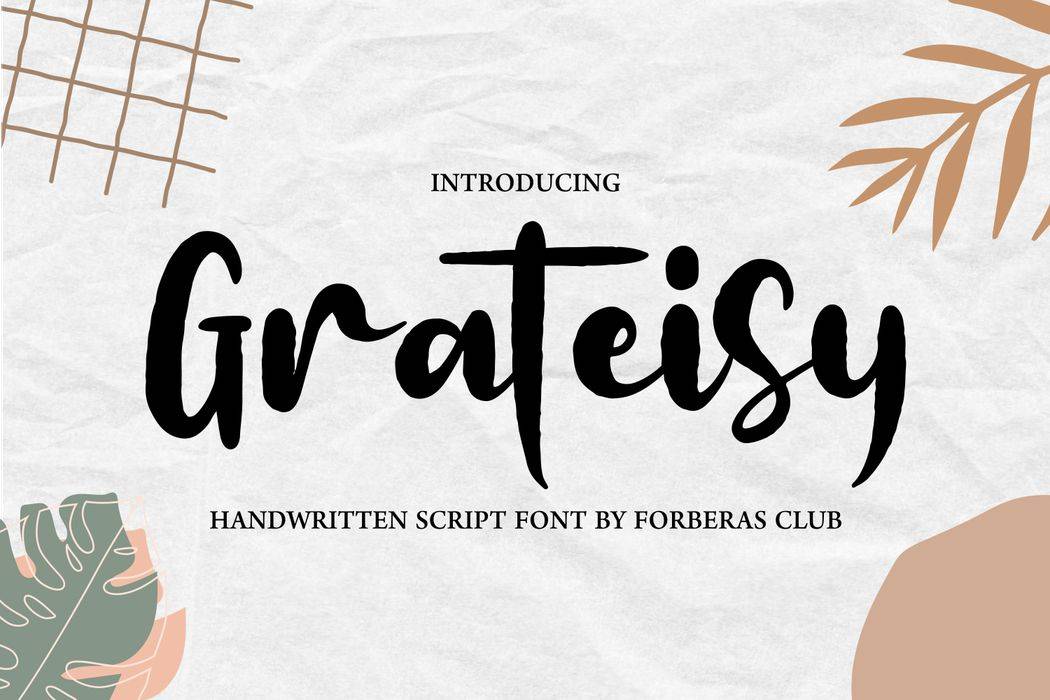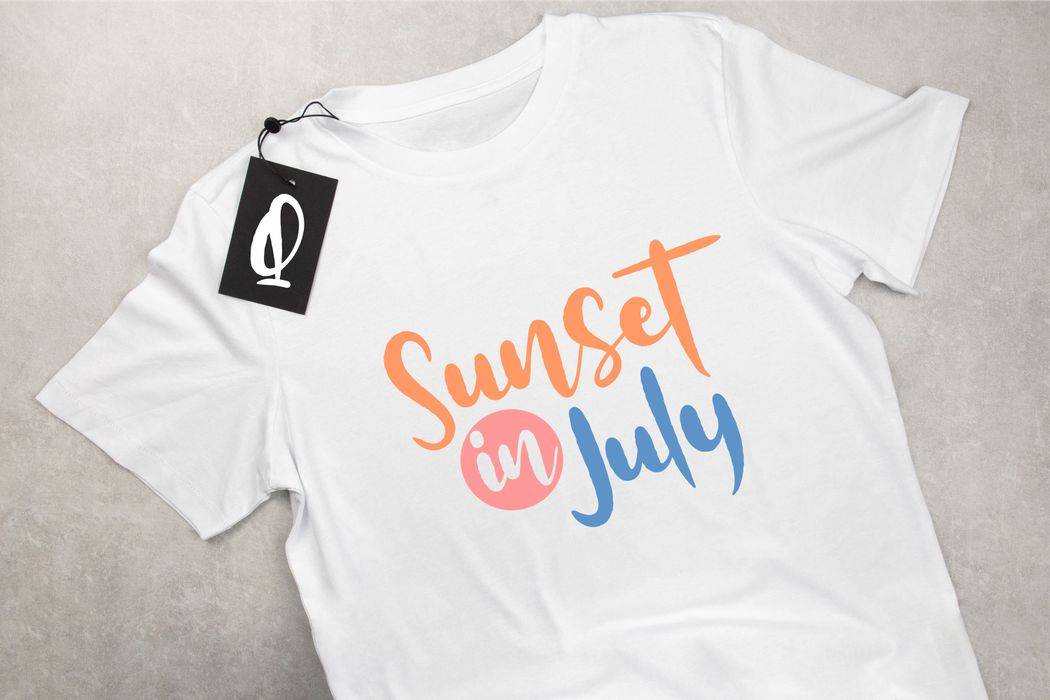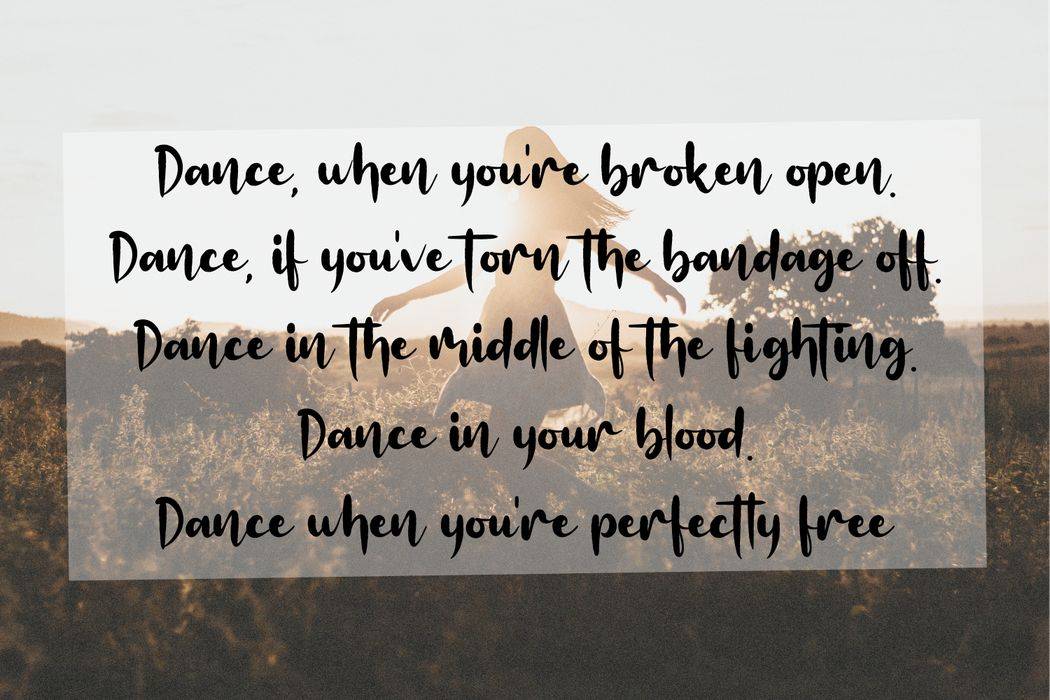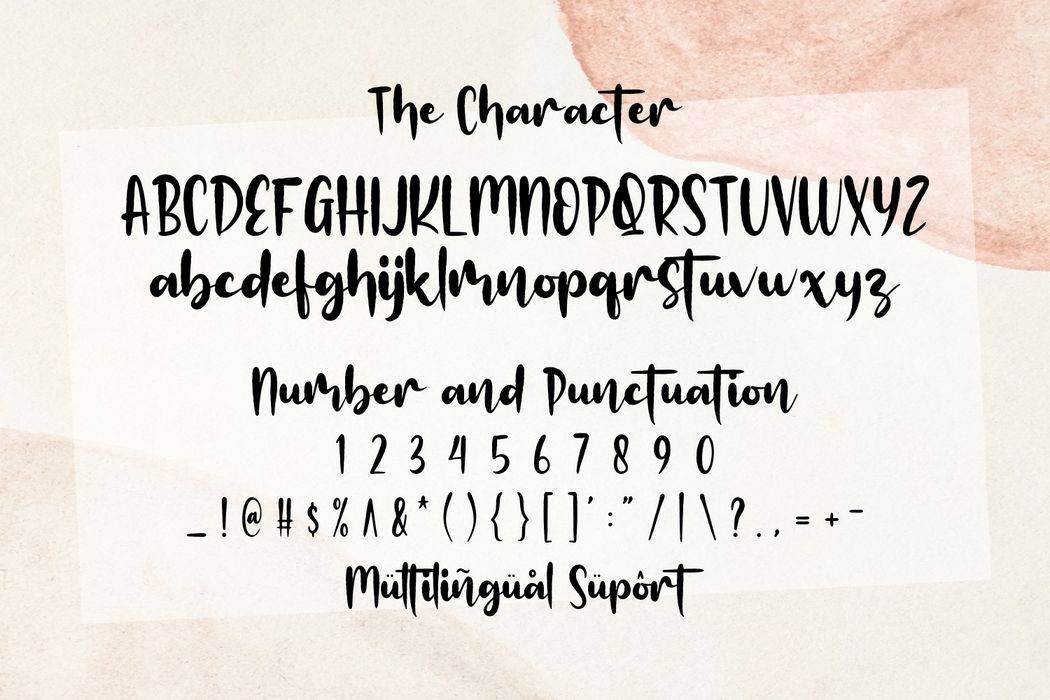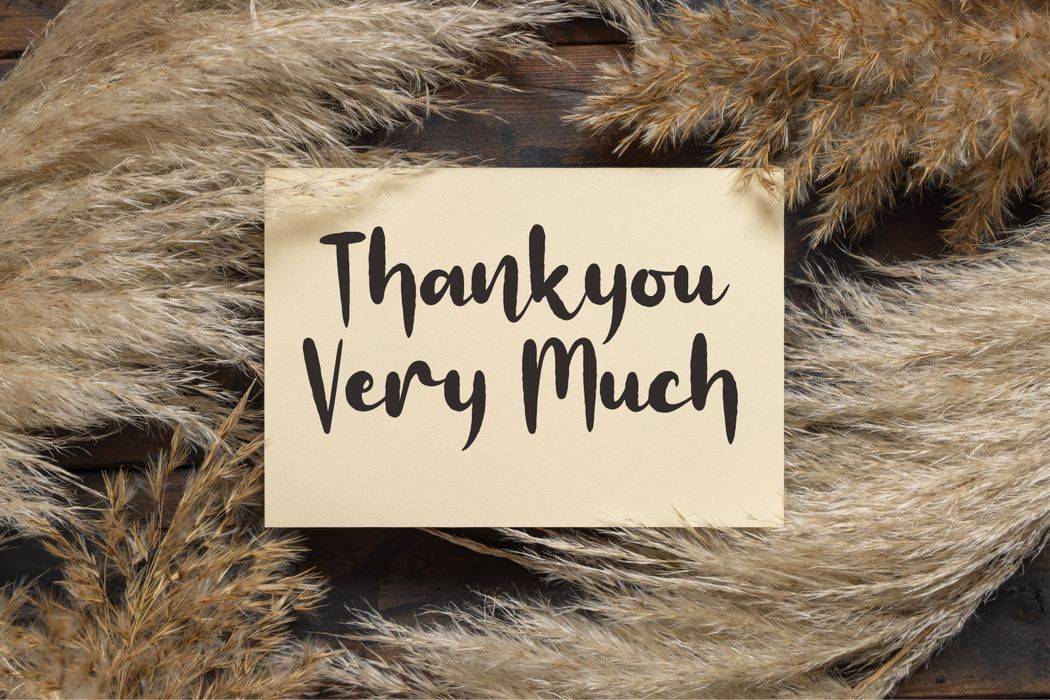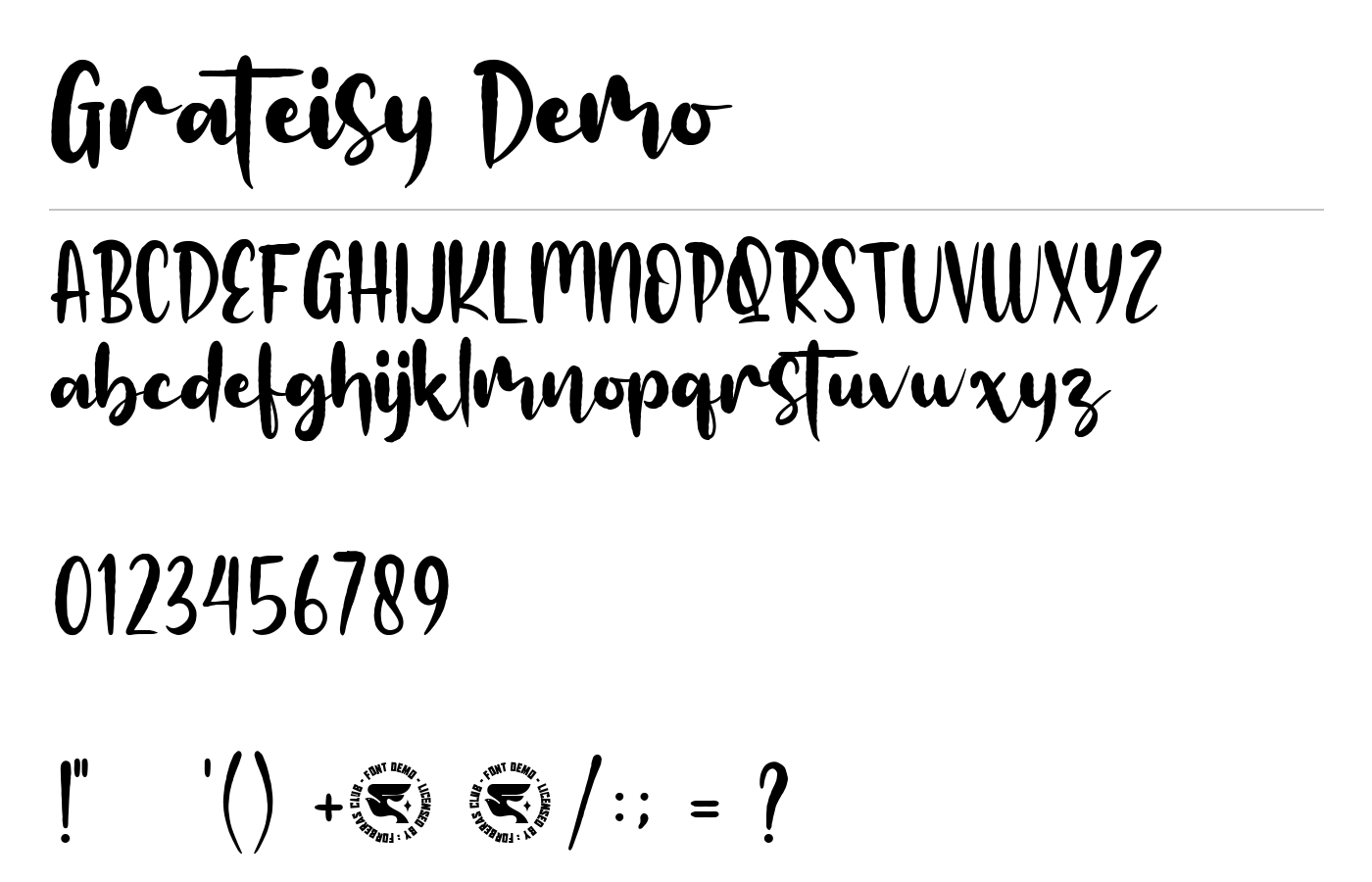
Grateisy is a lively and bold handwritten script font characterized by its playful, organic strokes and varied line thicknesses, giving it a warm and approachable feel. Its tall, slightly condensed letterforms with a mix of smooth curves and sharp edges make it perfect for creative and informal designs, such as logos, invitations, and branding that seek an energetic and friendly tone. This font works well in headlines and decorative text where personality and charm are key.
Grateisy Font
About Grateisy Font
| Font family | Grateisy Font |
| Designer | forberas |